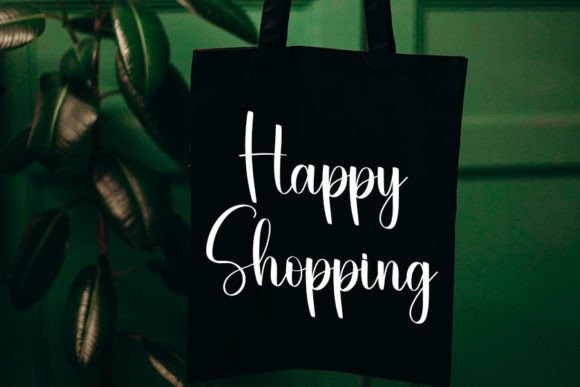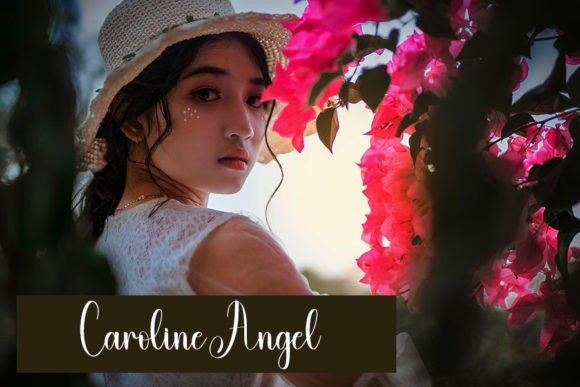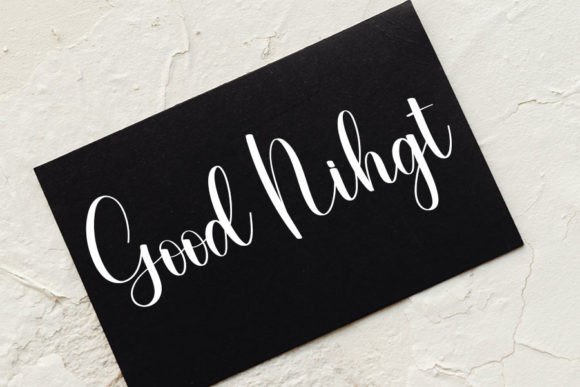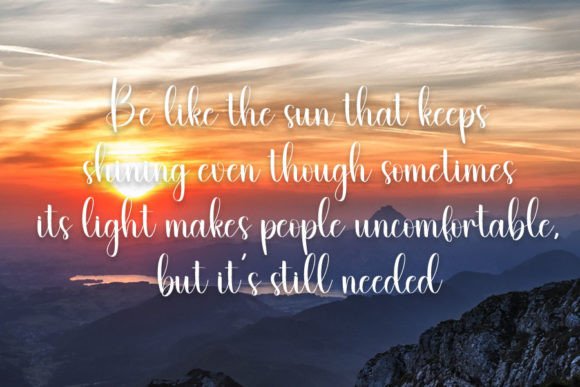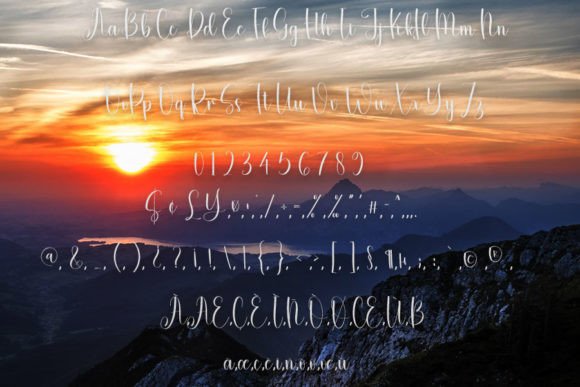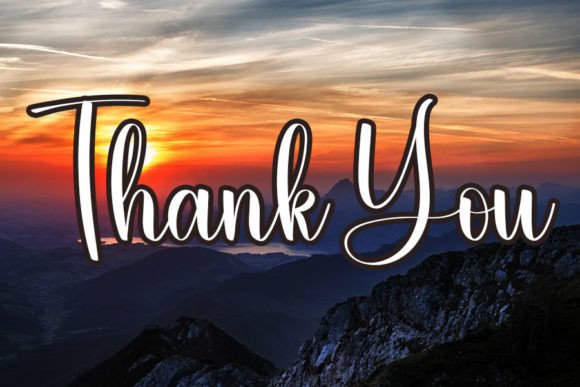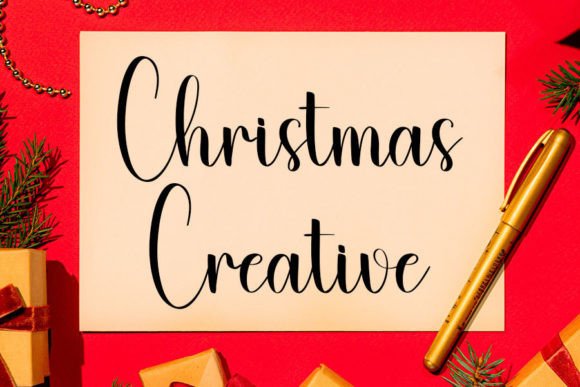
About Sunshine Font
The Sunshine Font download brings a burst of warmth and joy to every design. This friendly handwritten typeface is the perfect choice for projects that need a lighthearted, personal touch. Whether you’re creating birthday cards, digital invitations, or custom merchandise, Sunshine adds that cheerful spark you’re looking for.
Its smooth, natural strokes make it easy to read while still feeling organic and handmade. This combination of clarity and character makes it a versatile tool for both beginners and experienced designers.
Perfect for a Wide Range of Projects
You’ll find the Sunshine Font download ideal for:
Greeting cards and party invitations
Digital planners and social media posts
Printable quotes and inspirational posters
Branding and packaging for handmade products
Teacher materials, kids’ projects, and craft blogs
Its upbeat and approachable look brings friendliness to any setting.
Why Choose Sunshine Font?
Here’s why the Sunshine Font download stands out:
Balanced handwritten design with joyful energy
Clear, charming letterforms that adapt to many uses
Adds personality to both print and digital projects
This font offers a delightful blend of professionalism and playfulness.
Bring a Little Sunshine to Your Design Work
When you want your message to feel sincere, optimistic, and welcoming, the Sunshine Font download is the right choice. It radiates charm, making your content feel more human and heartfelt.